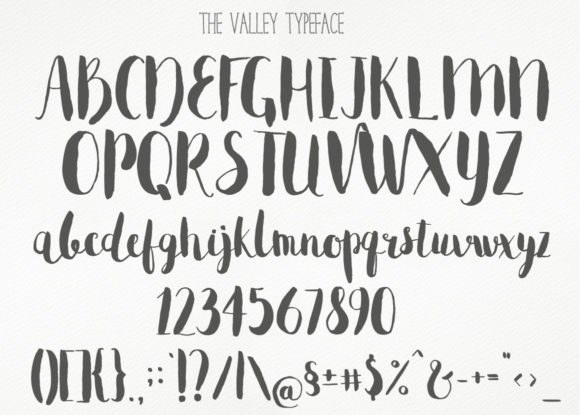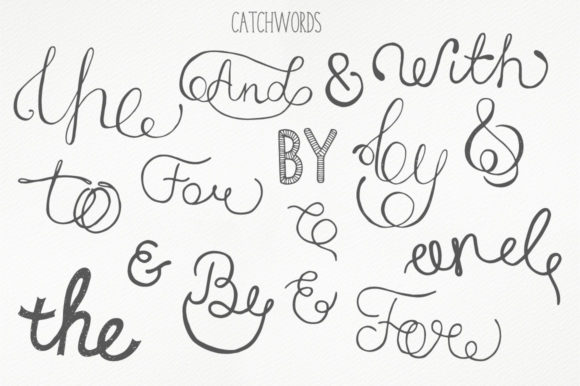
About The Valley Font
This font is handwritten and contains free watercolor and vector graphics.
23 watercolor splashes;
44 watercolor textures;
200 vector elements;
16 catchwords.